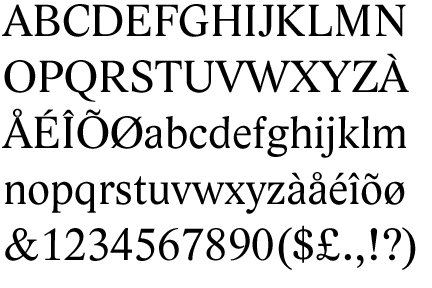
Based on work originally commissioned by the Czech periodical Lidov Noviny (People's Newspaper) to design a highly legible typeface derived from Times.
Designer: Frantisek Storm
Year: 2000
Publisher: Storm Type Foundry
Influenced by:
Times